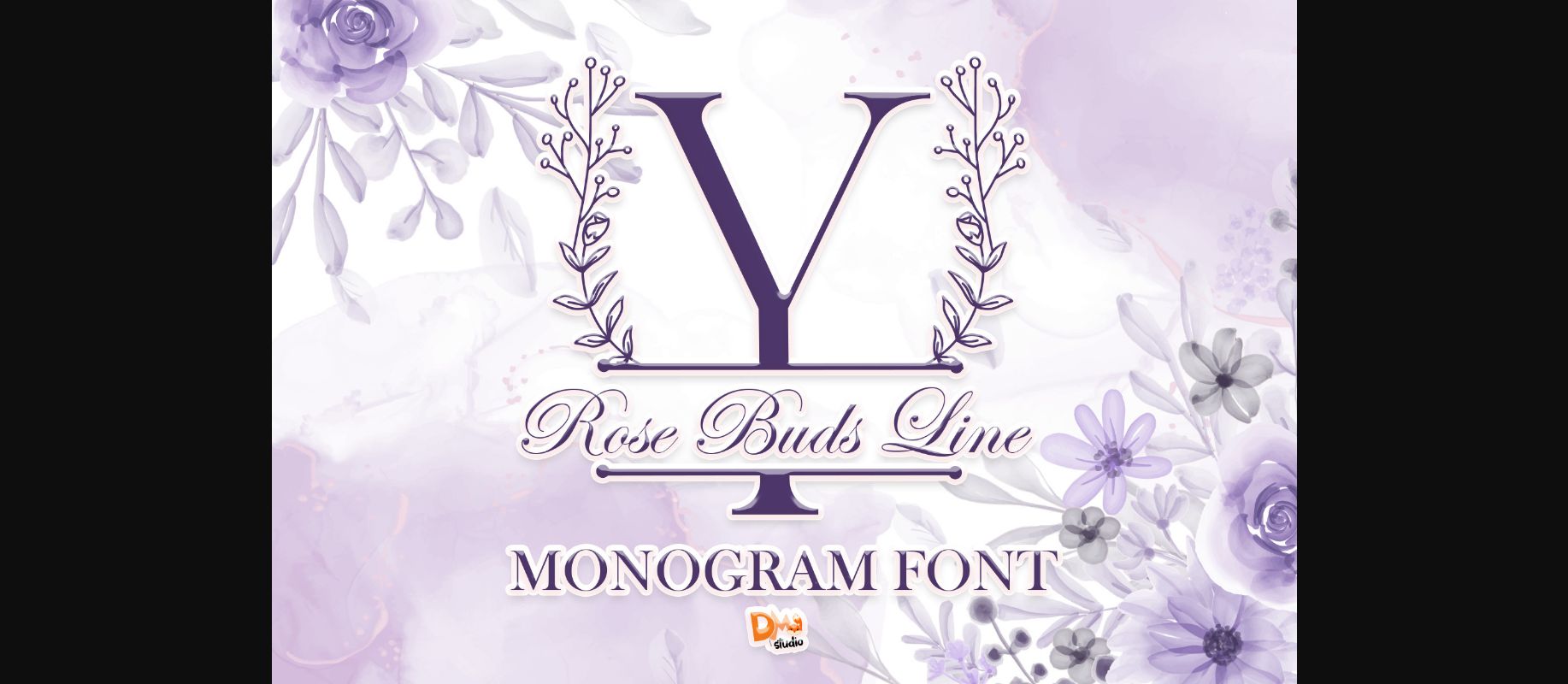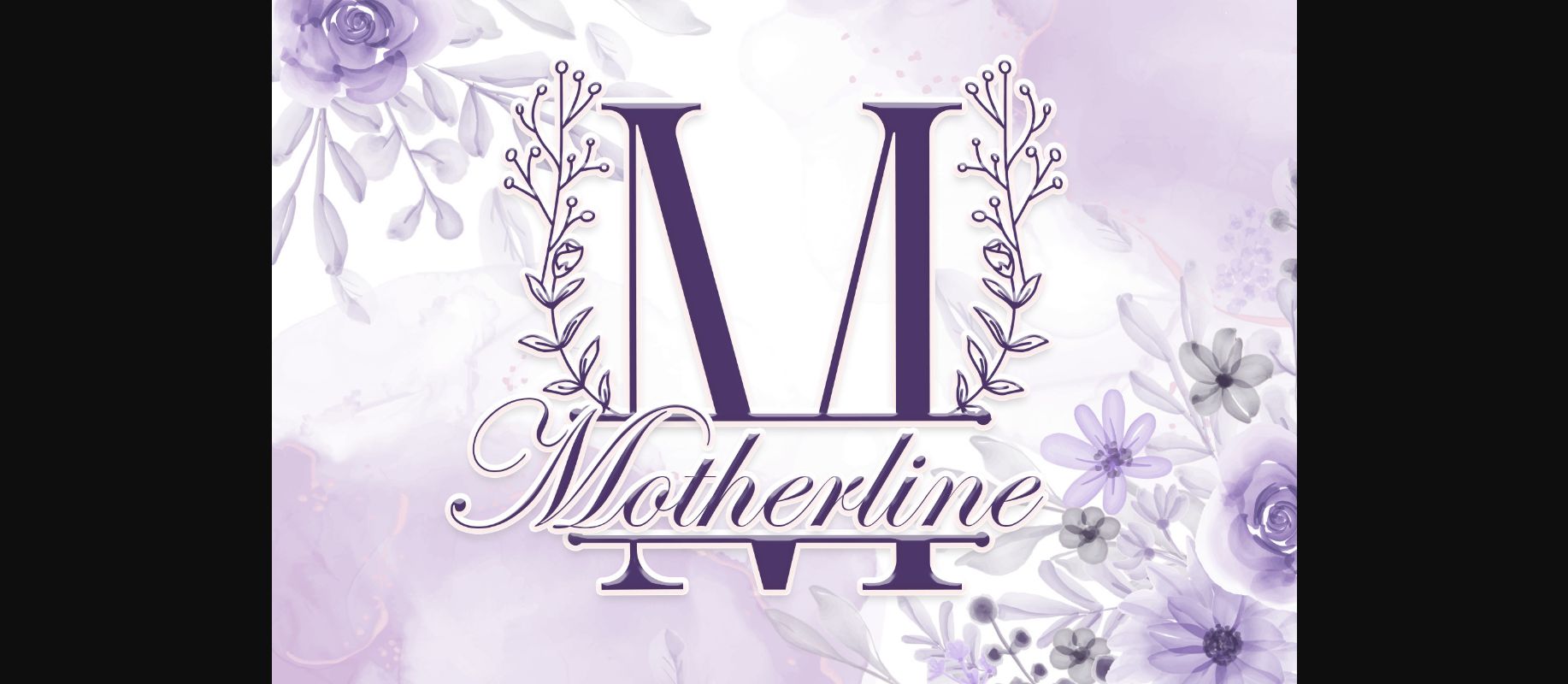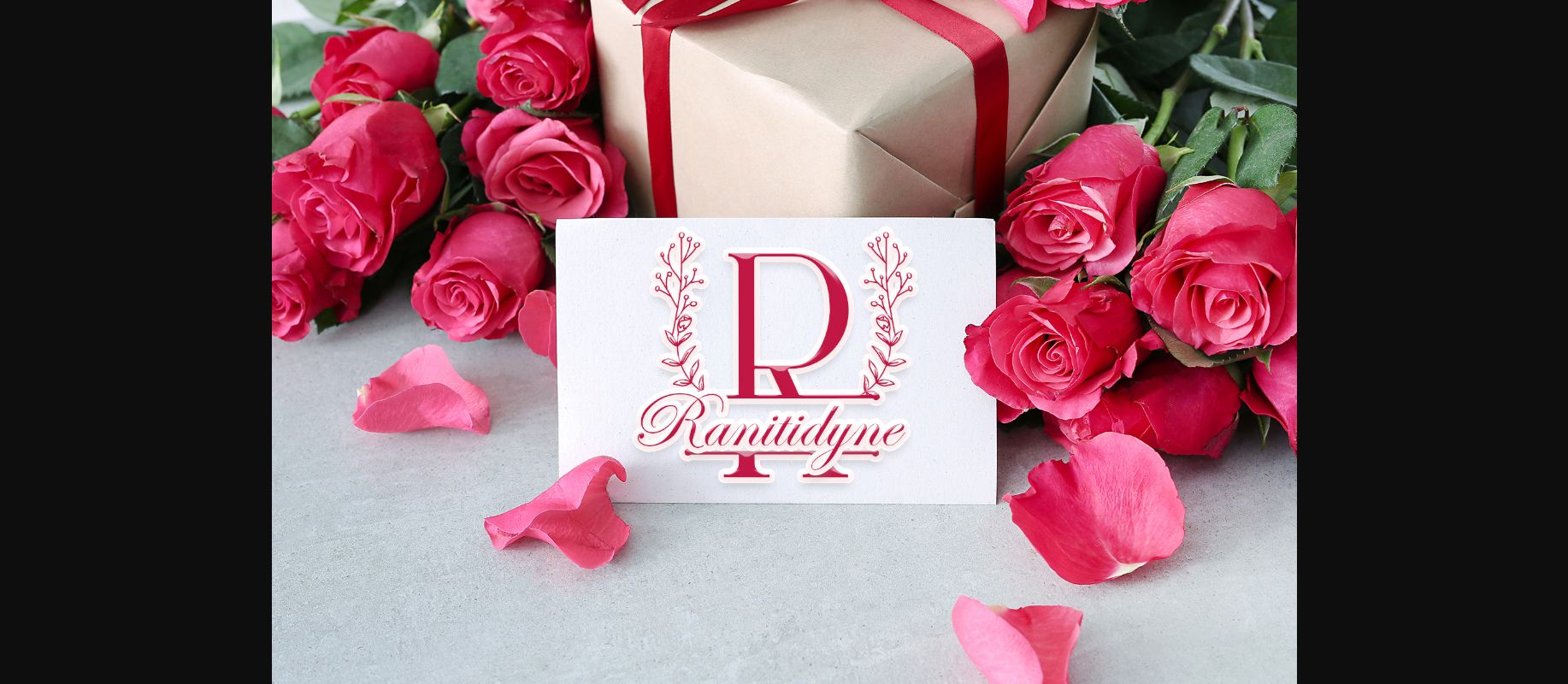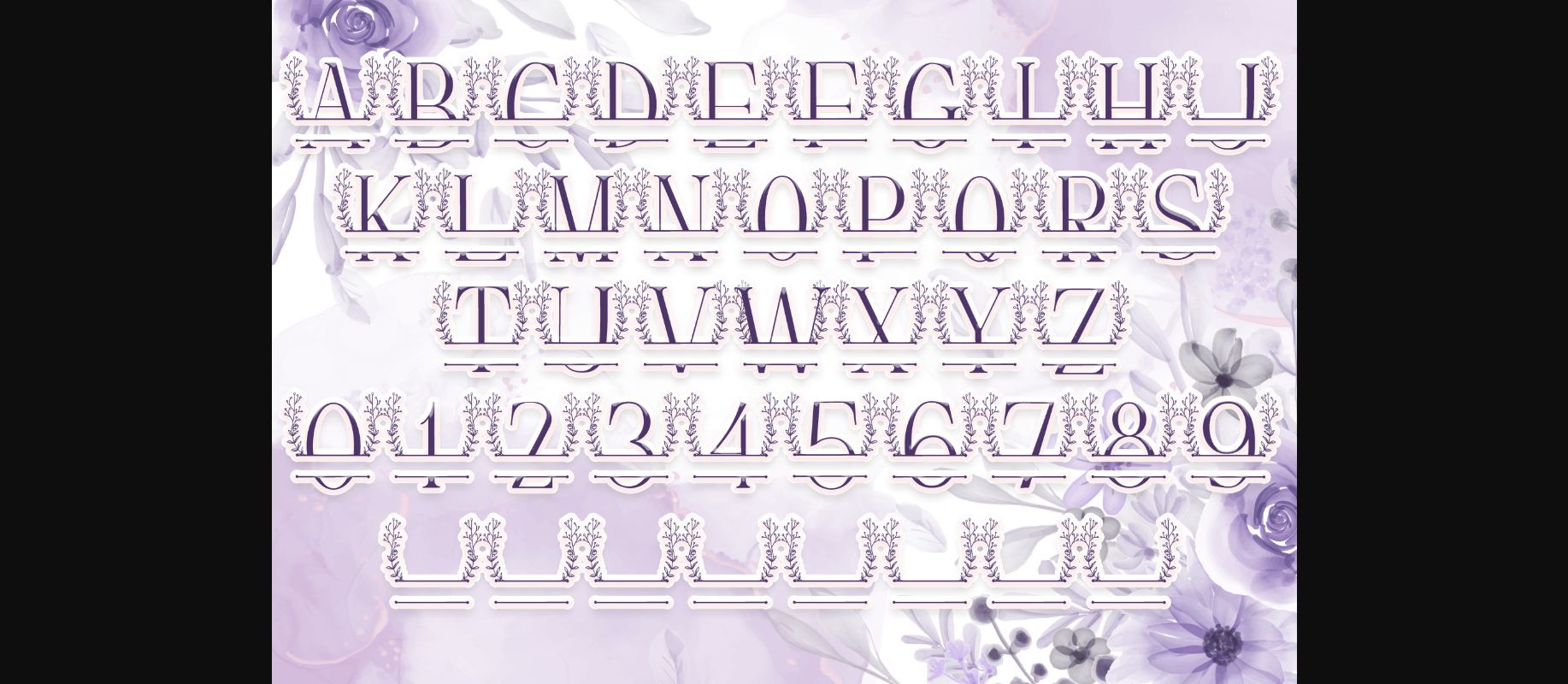
Rose Buds Line Monogram Font
About Rose Buds Line Monogram Font
Rose Buds Line Monogram is a sophisticated and unique decorative font. Add this romantic and lovely looking font to each of your love letters, wedding invitations or favorite design ideas, and you will be astounded by the outcome.